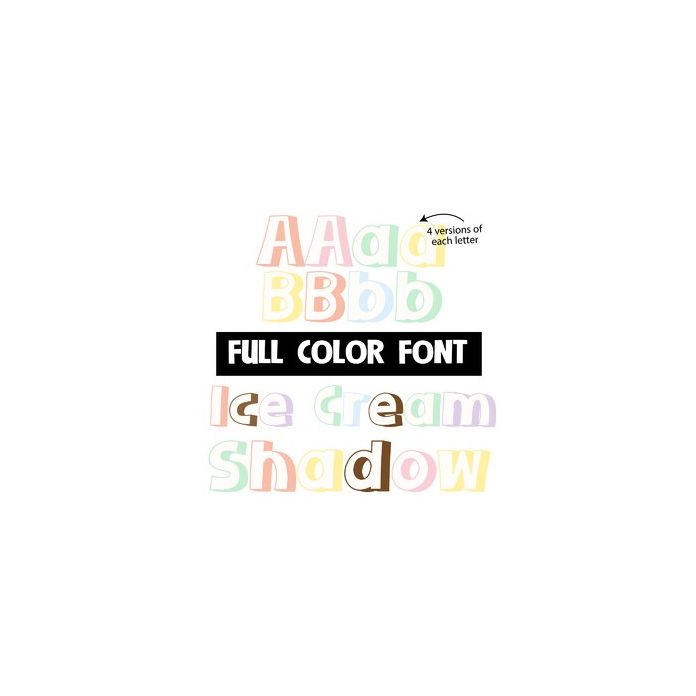
This adorable and fun 3d color font is an ice cream alphabet with a full second set of upper and lowercase in a secondary color set. These alt letters can be accessed through your system's character map. This font works best for titles, displays, posters and more. Please note color fonts will show as black in non compatible programs. This font type is compatible with Silhouette Studio.